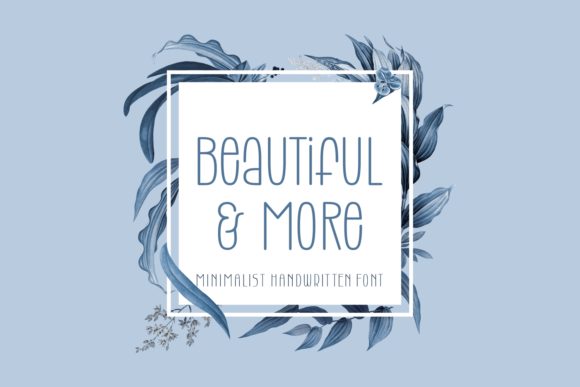
Introducing Beautiful & More Font, a captivating and enchanting addition to your typography collection. Created by the talented Jasm from 7NTypes, this sans serif gem is here to revolutionize your design game.
With its simplicity and delicate strokes, Beautiful & More Font brings an air of elegance to any project. Its thin lettered structure adds a touch of sophistication and refinement, making it perfect for both formal and informal designs.
Whether you're working on a typography poster, branding materials, or even a website, this font has got you covered. It effortlessly adapts to any style or theme, making it incredibly versatile and adaptable.
Get ready to captivate your audience with this font's unique and eye-catching features. Its minimalist design speaks volumes, allowing your message to shine and leave a lasting impression.
Beautiful & More Font is the epitome of creativity and imagination. It opens up endless possibilities for your designs, empowering you to create something truly remarkable.
But it doesn't stop there. This font is more than just visually appealing; it evokes emotions and creates connections. Its enchanting aura draws the viewer in, leaving them mesmerized by its beauty.
Imagine the impact this font will have on your next project. Picture the awe and admiration from your audience as they are instantly captivated by your stunning visuals.
Don't miss out on the opportunity to elevate your designs to new heights. Beautiful & More Font is your secret weapon, allowing you to stand out in a sea of ordinary.
Step into a world where ordinary becomes extraordinary. Step into the world of Beautiful & More Font.